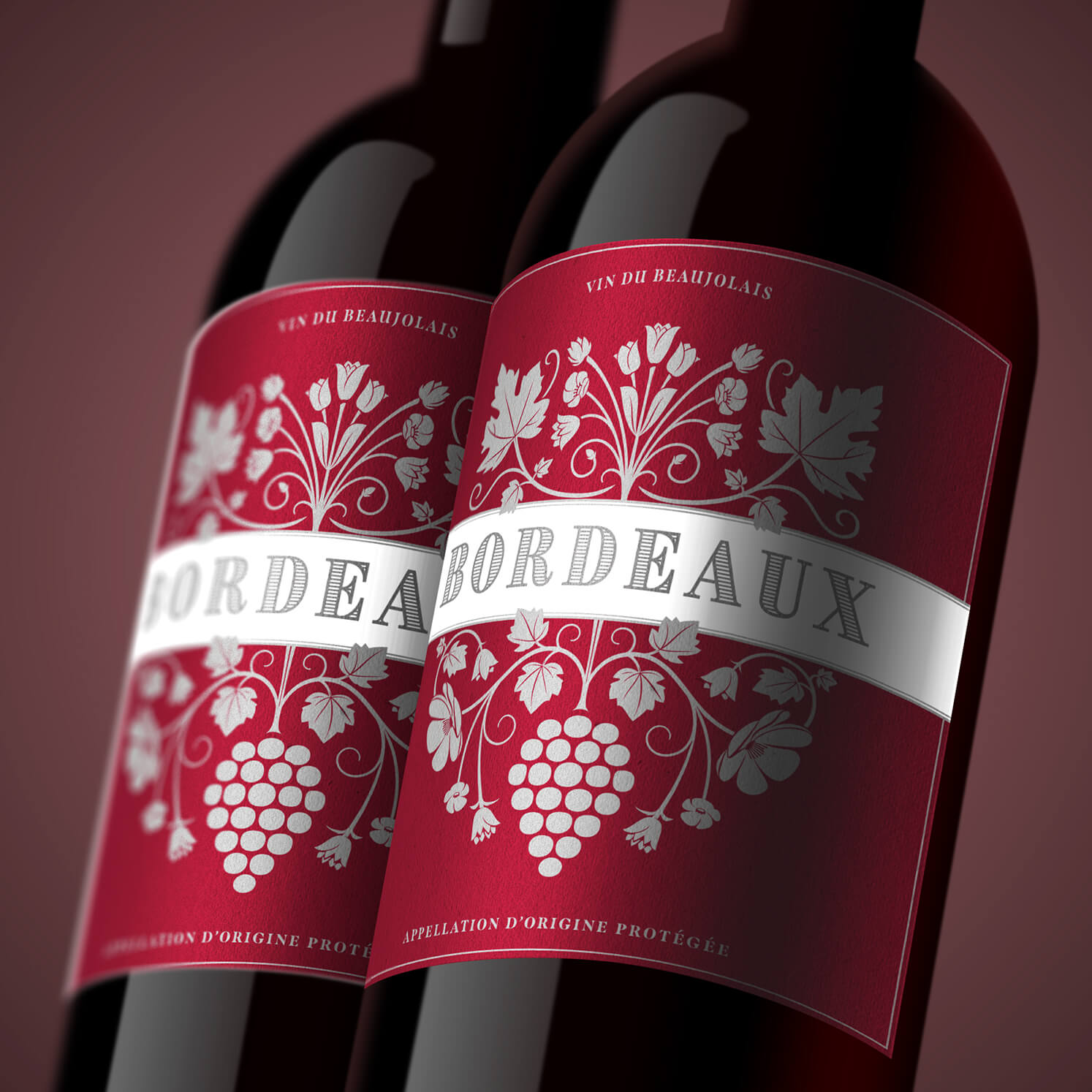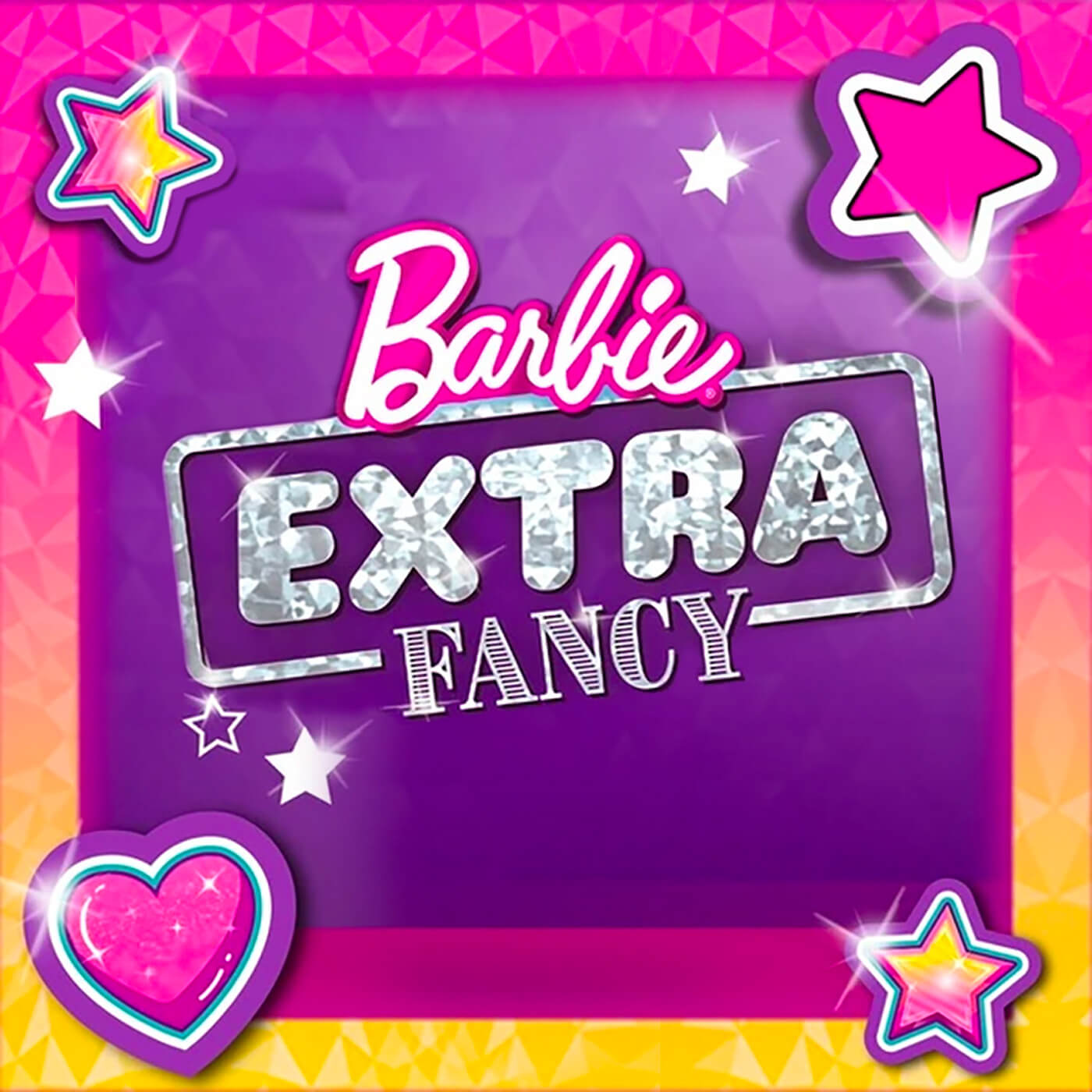
Brim Combined
3 styles
Features
Opentype Features
Superiors [1,2,3]
Ordinals
Brim Combined takes all the charm of the popular Brim Narrow and simplifies it into three ready-to-use, 3D font styles. With no need for layering, it’s perfect for creating punchy headlines, posters and logotypes – whether you’re using professional design software or tools like Canva and Microsoft Word.
Featuring elegant handmade linework, bold drop shades and offset designs, Brim Combined makes it easy to add decorative flair to your typography. Its warm, tactile character ensures your designs stand out both in print and on screen.